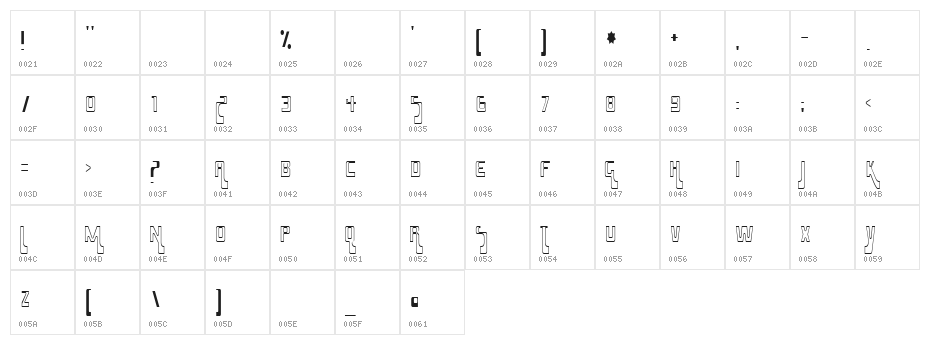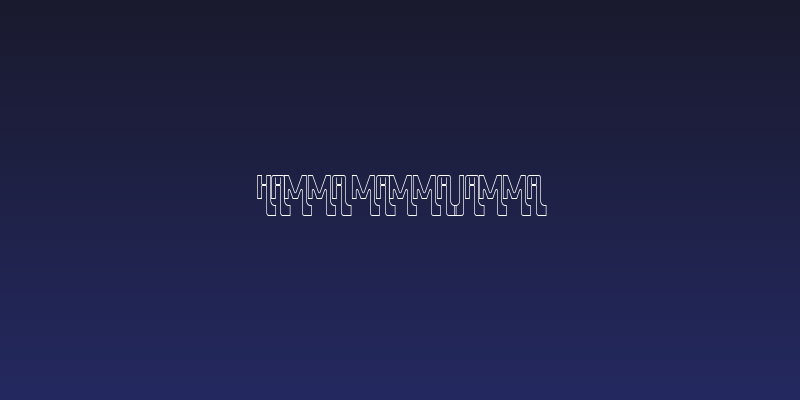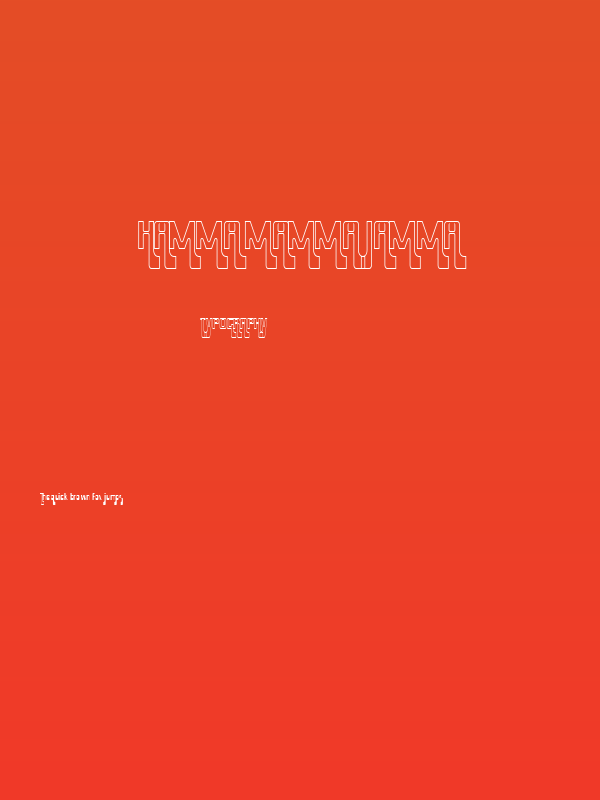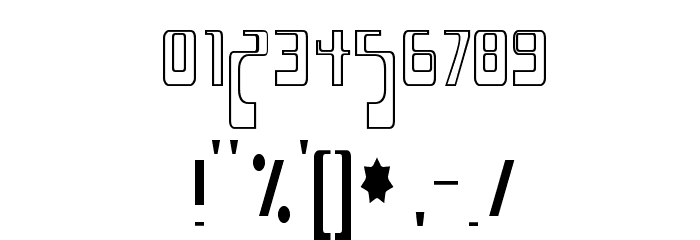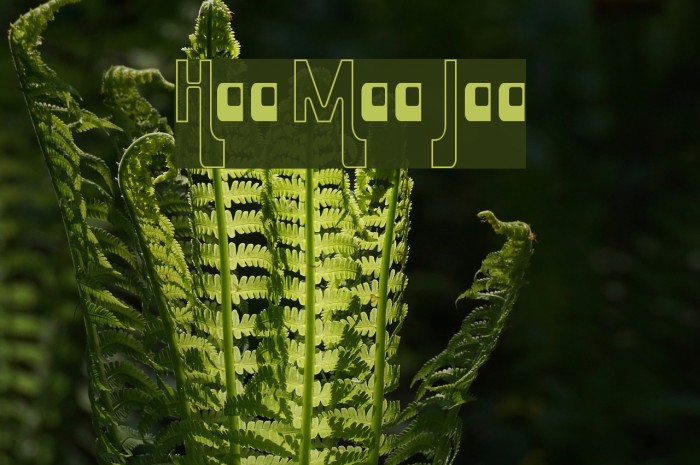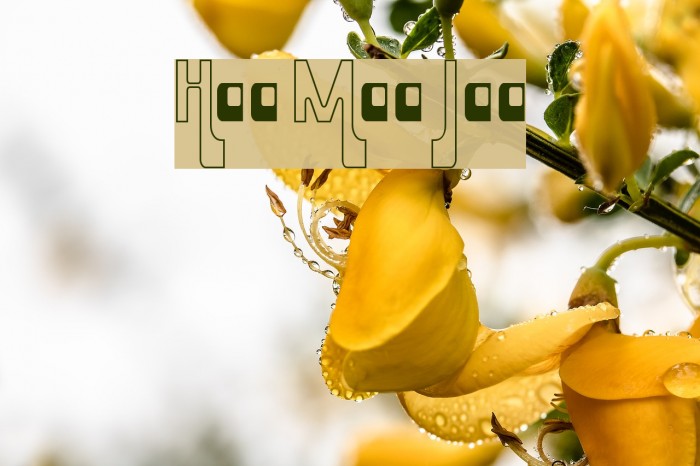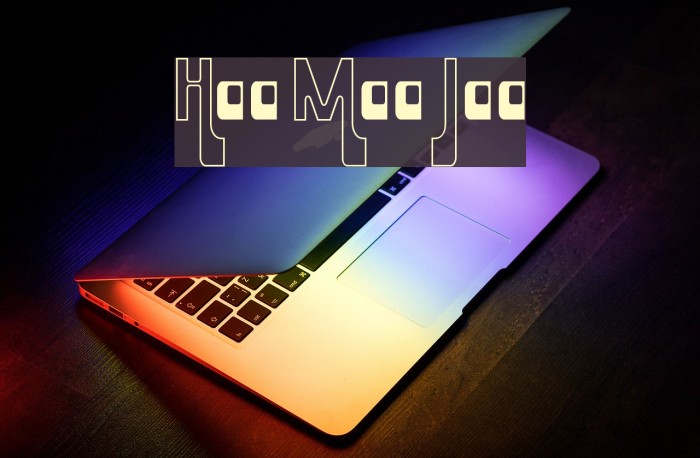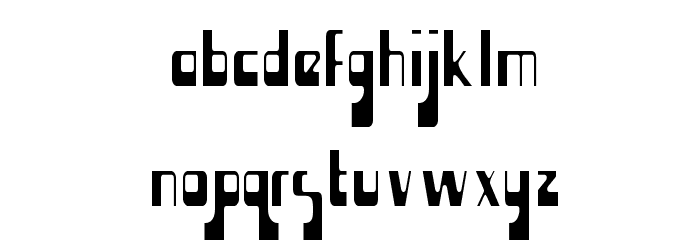
Hamma Mamma Jamma Font
Hamma Mamma Jamma Description
This font features a unique blend of geometric and modern design elements, characterized by its bold, angular shapes and distinct line work. The uppercase letters have a futuristic, almost mechanical appearance with extended lines and sharp angles, while the lowercase letters maintain a more solid and compact form. The numbers and special characters continue this theme, offering a cohesive look across all glyphs. The font's design is both eye-catching and versatile, making it suitable for a variety of creative projects.
| Proposed Projects | Ideal for sci-fi themed designs, technology branding, video game titles, and modern posters. |